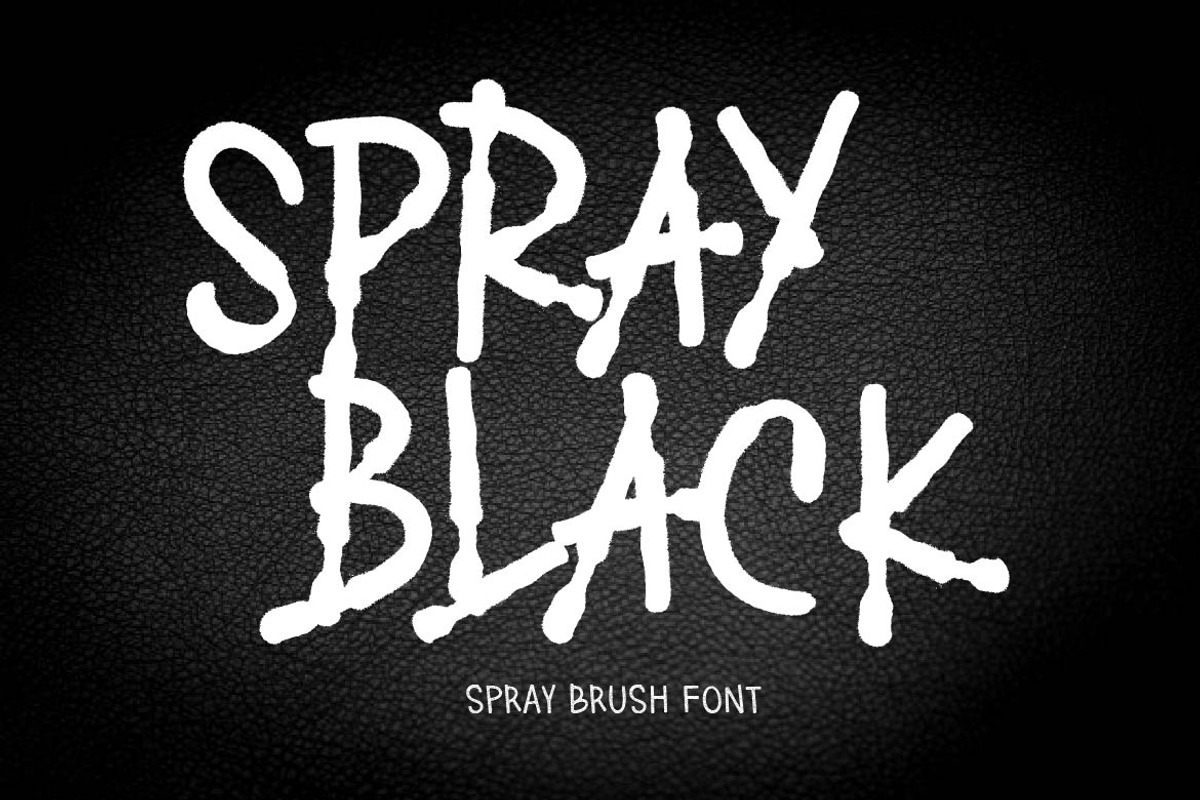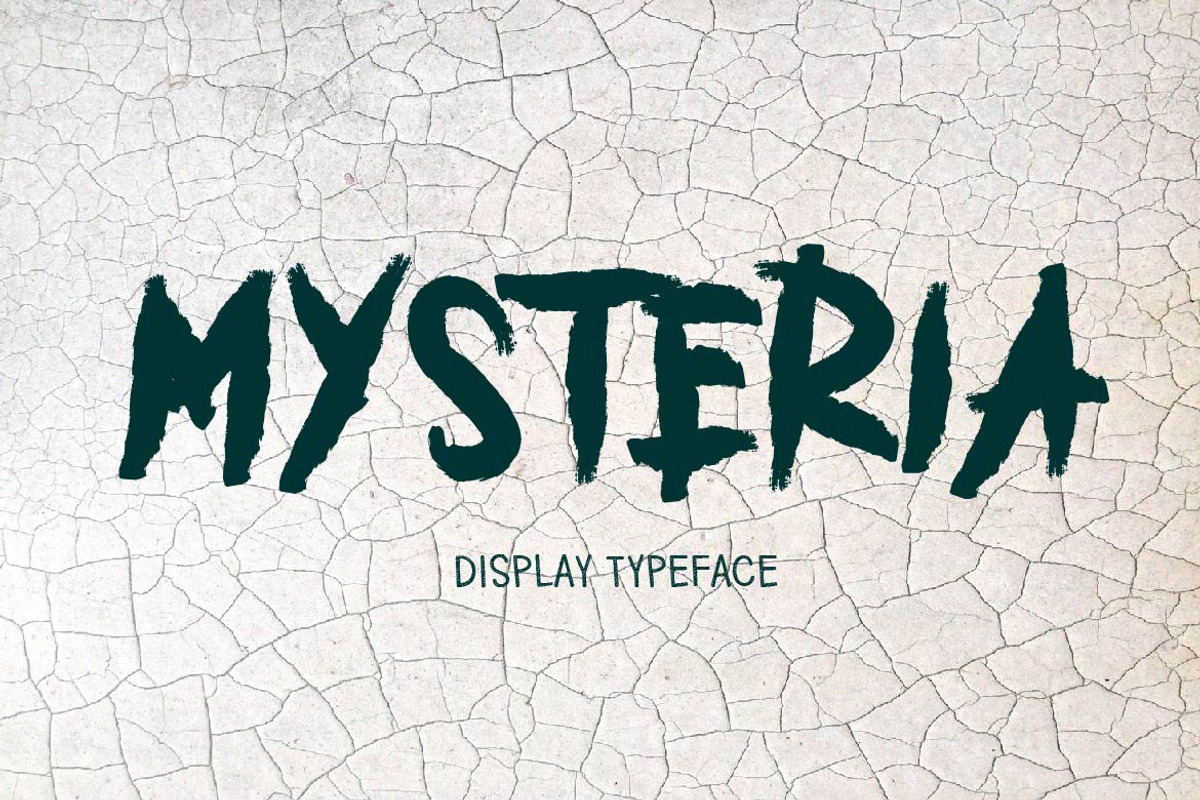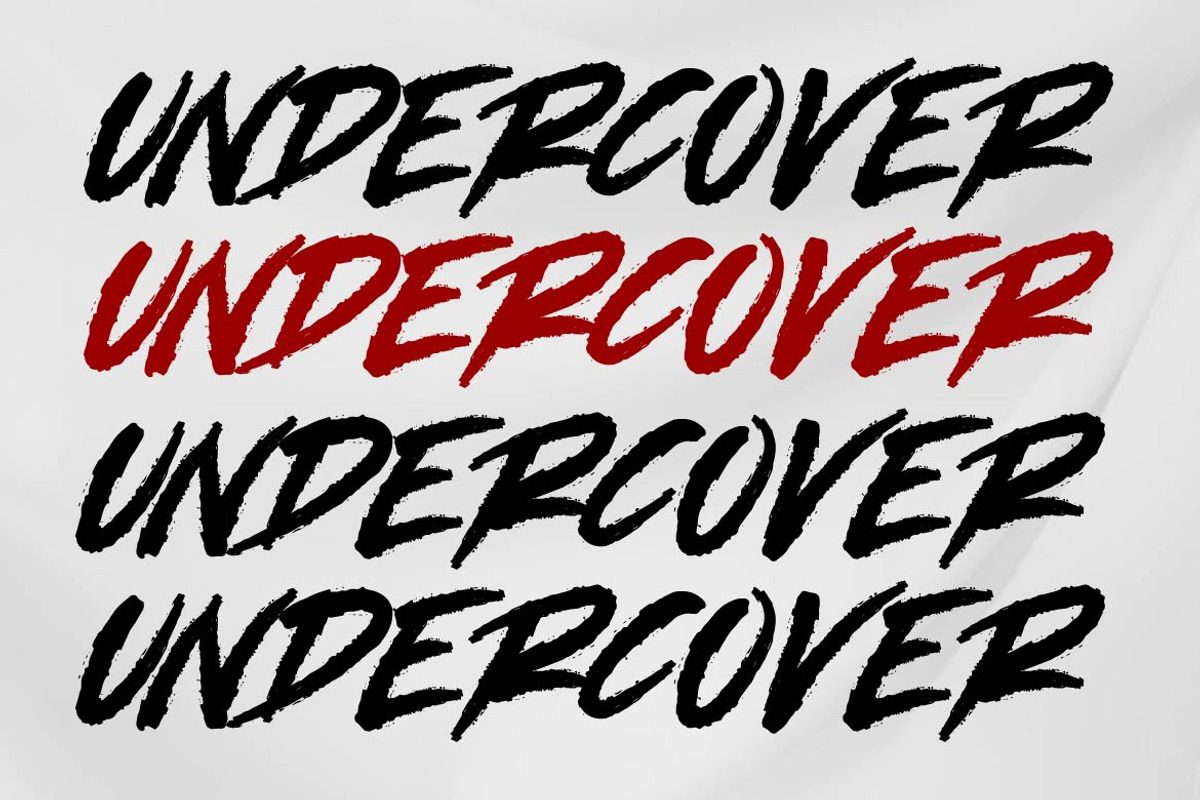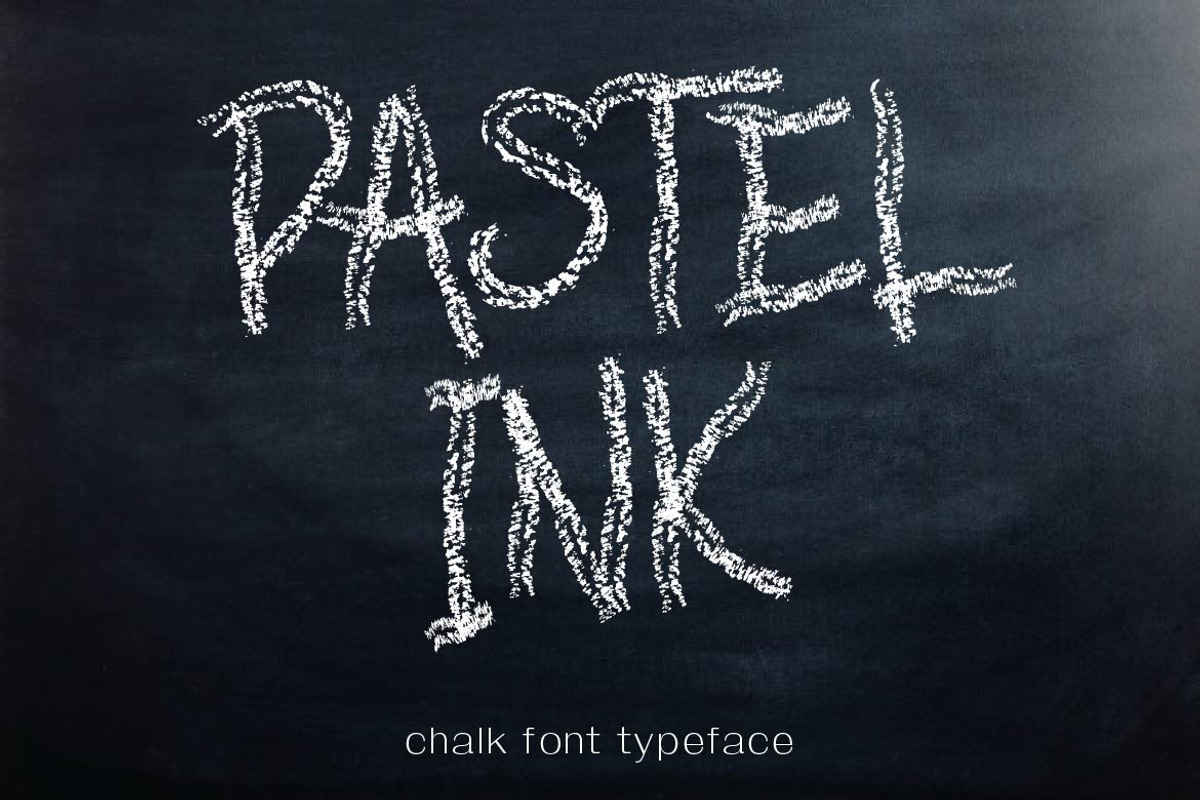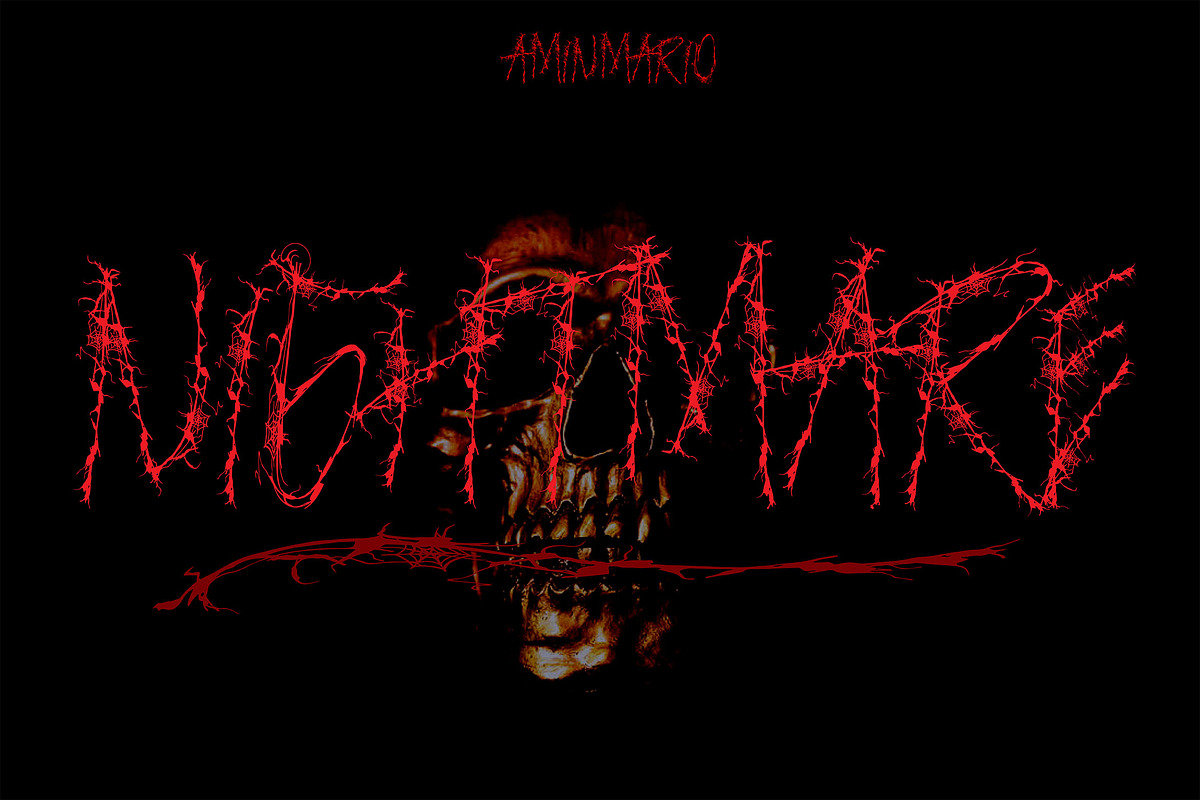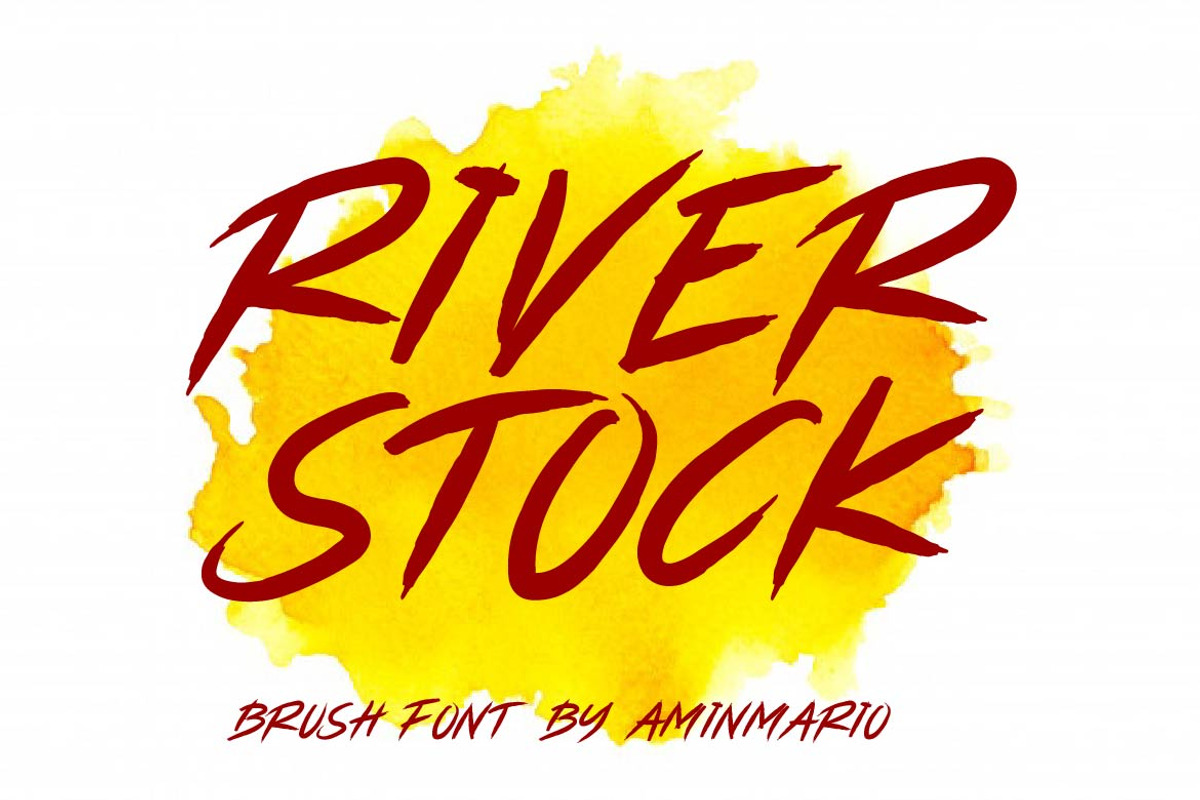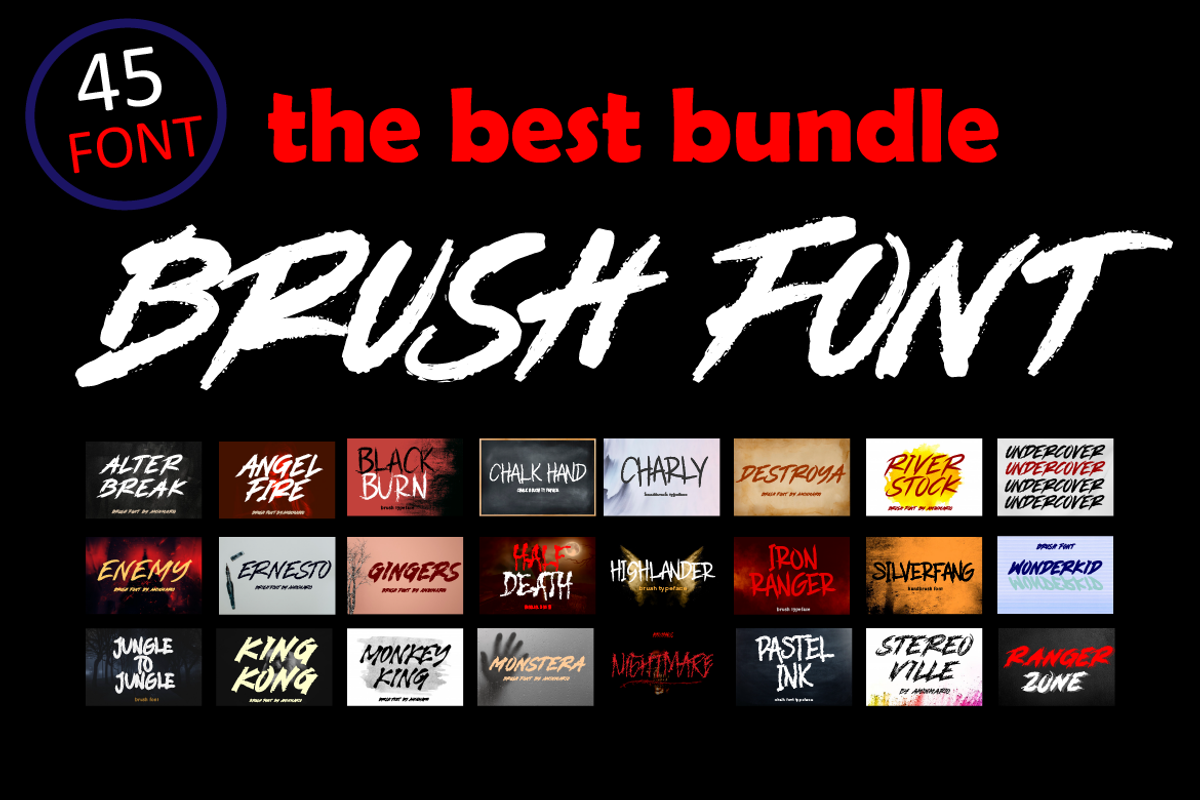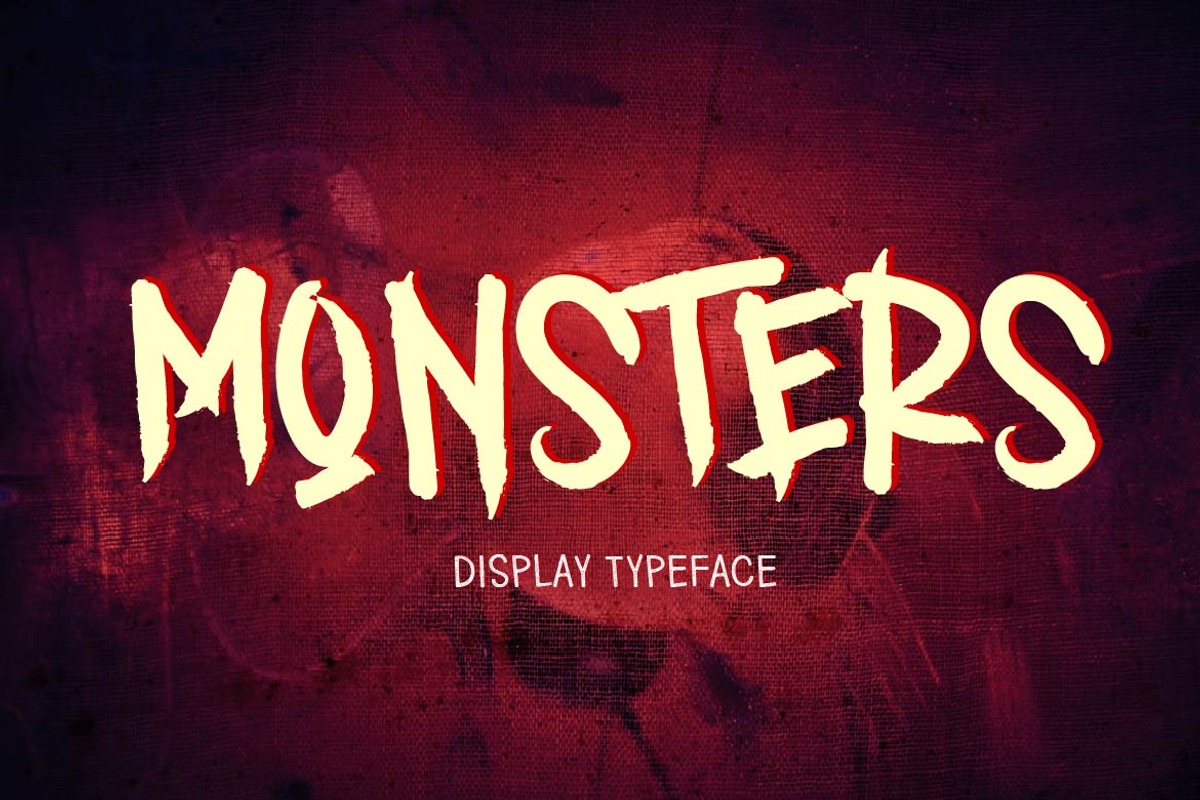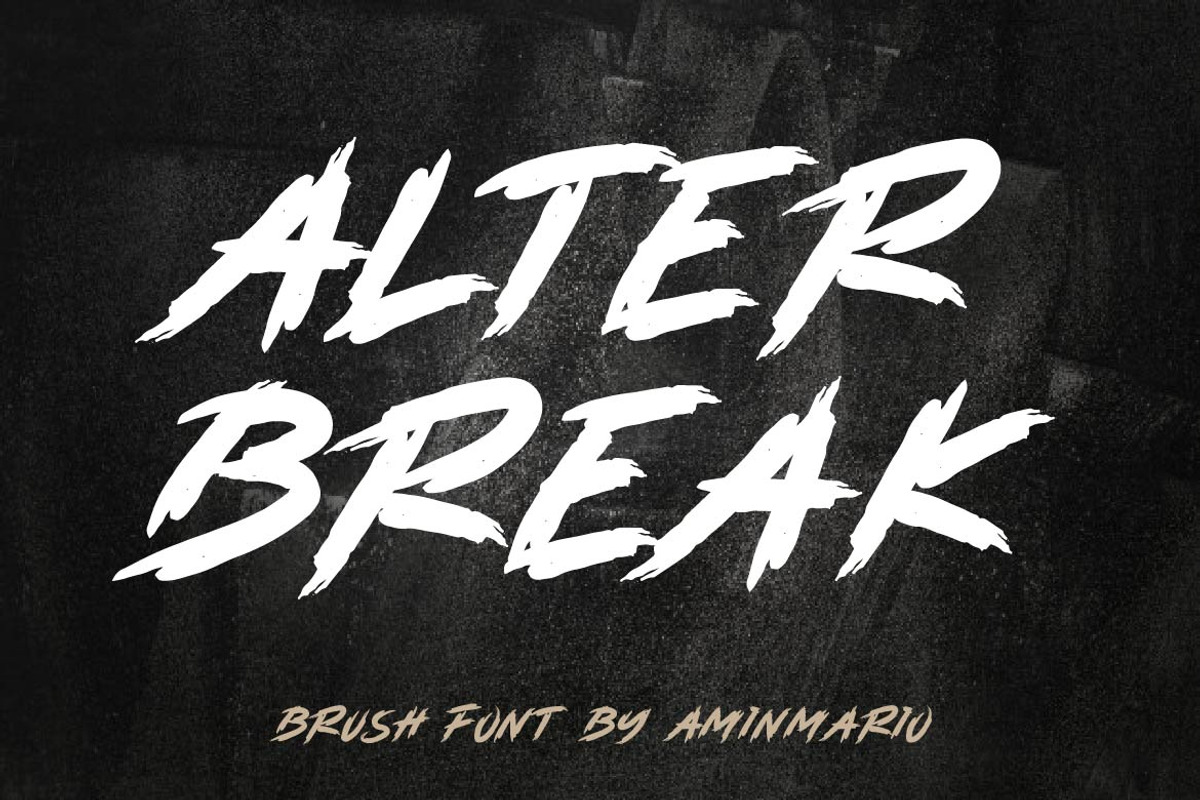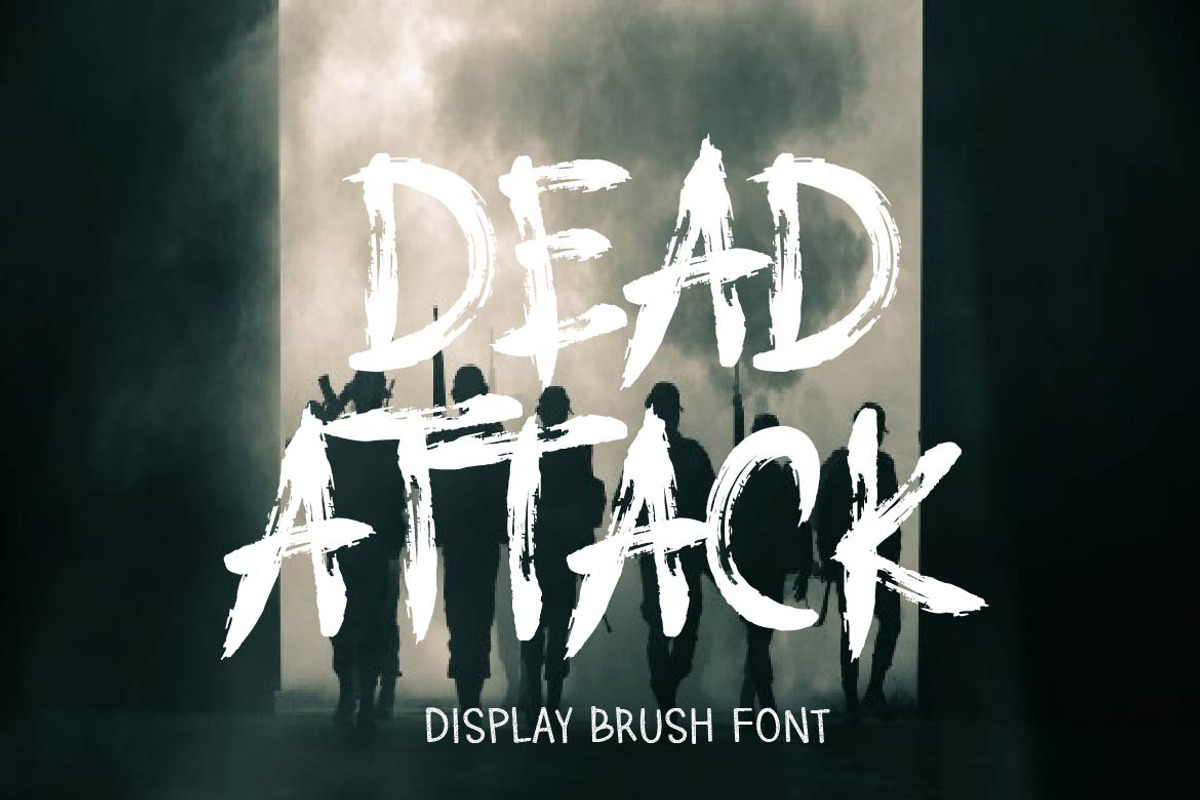
Brush Font Bundle 45 Fonts
INTRODUCING
Brush Fonts Bundle includes 45 fonts.
This bundle is perfect for challenging jobs, titles, movie,logos, apparel, t-shirts, hoodies, quotes, product packaging, or anything that needs a typographic turbo-boost and a typographic unique style. Get it now for only $19 and save $500 more!